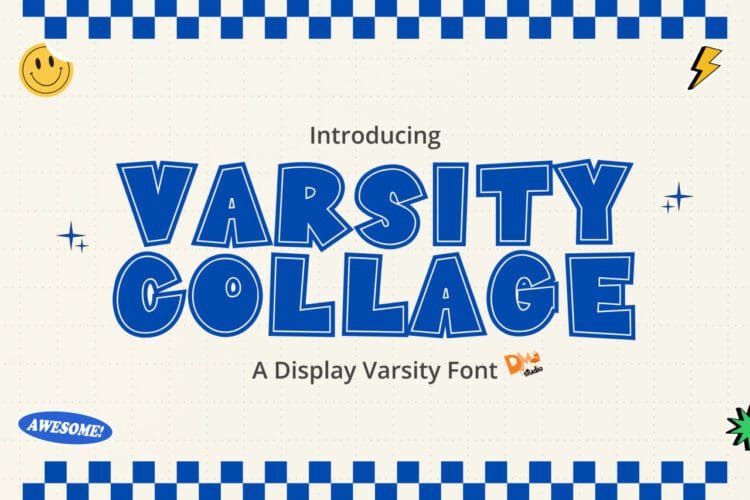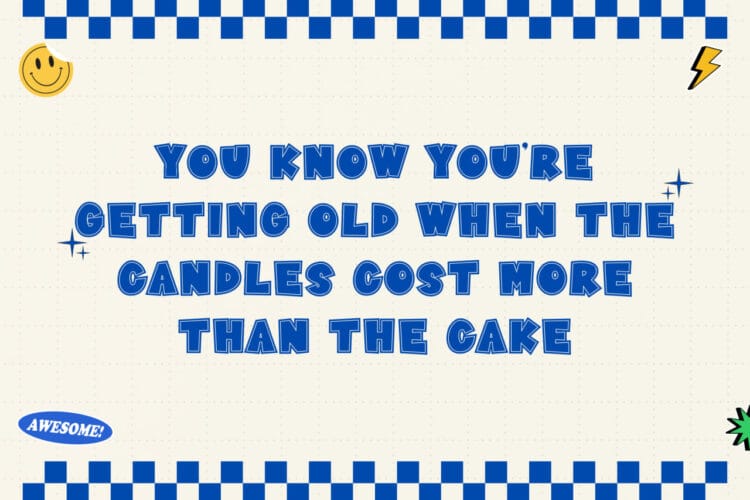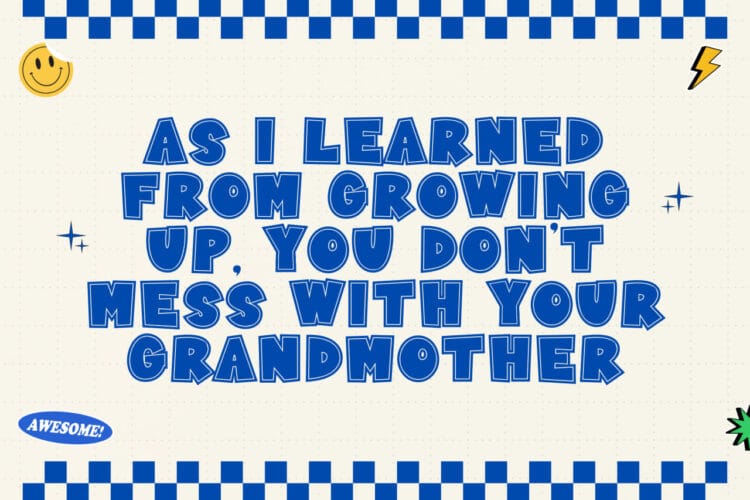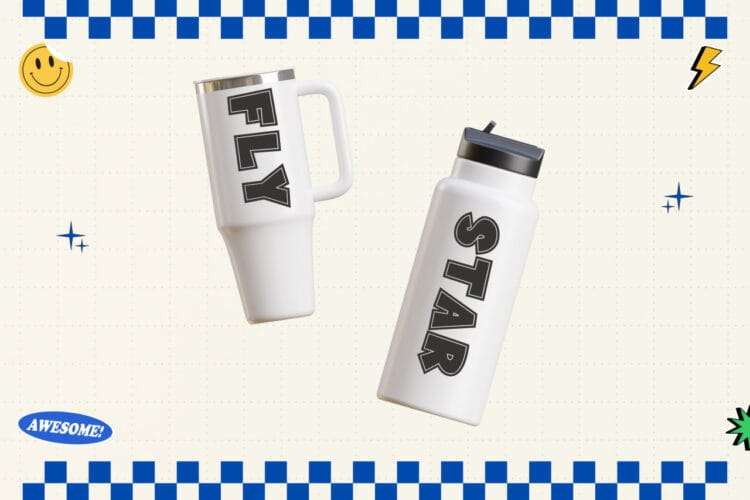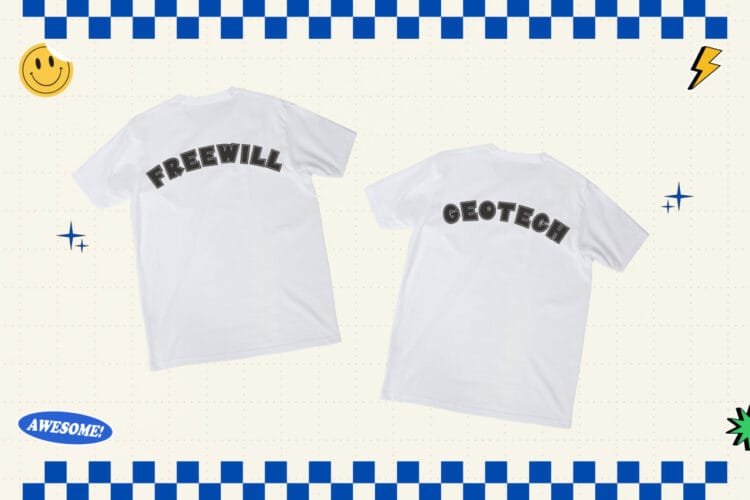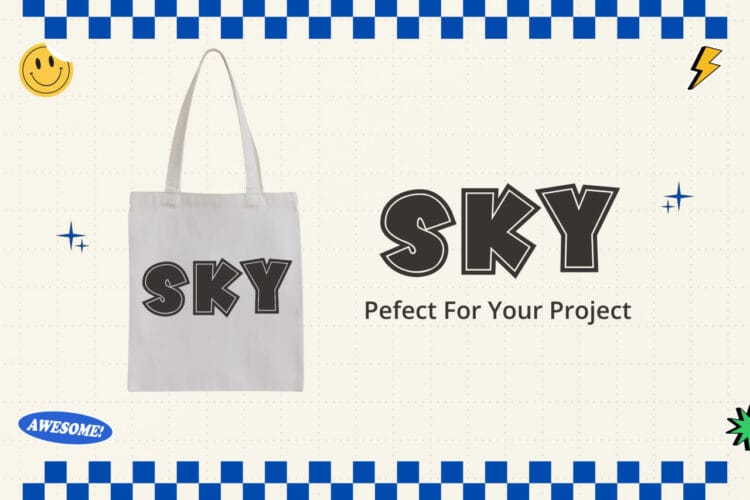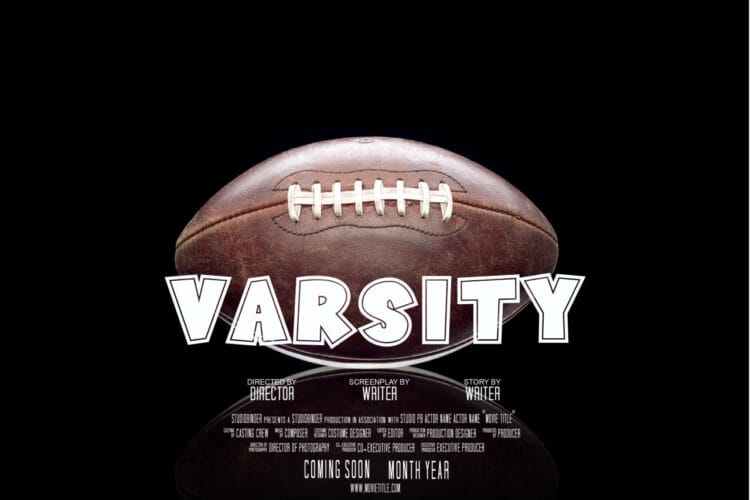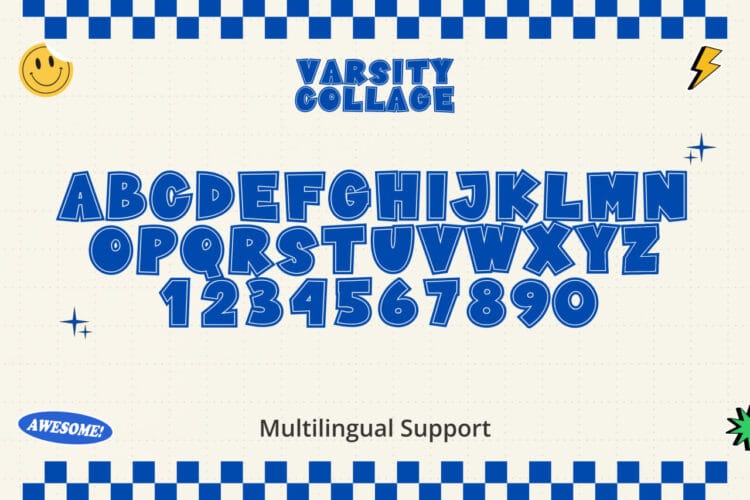
Meet Varsity College
Varsity College Font brings classic campus energy to modern layouts. Letters feel bold, upright, and friendly. Because strokes are sturdy, your words read fast on shirts, stickers, and thumbnails. Use it for team merch, pep banners, school fairs, and YouTube covers. Moreover, the shapes hold color, outline, and texture well. Therefore, even simple mockups look strong on busy feeds.
Where the varsity college font shines
Set names, class years, and rally phrases. For example, try “Go Team,” “Alumni ’25,” or city initials. Then add double strokes, stitch edges, or patch textures to echo athletic gear. Since spacing is tuned for headlines, layouts come together in minutes. As a result, your shop can ship full sets for seasons, clubs, and tournaments.
Fast setup, bold results
Design tips for the varsity college font
Keep copy short and let the letterforms lead. Pair Varsity College with a clean geometric sans for body text. Meanwhile, try inner lines, soft shadows, or sticker borders for depth. Because the shapes are rounded, felt textures and light grain look great. Plus, a tiny halftone adds retro fieldhouse charm.
Why creators choose this varsity college font
You want school spirit with clear readability. This typeface delivers. It grabs attention in crowded feeds and speeds production. Also, it scales from badge stickers to sideline banners. However, remember its sweet spot: titles, names, and jersey-style numbers. When layouts stay simple, results feel bold, friendly, and memorable.
Creative ideas to boost sales
Design camp badges, water-bottle decals, and pep-rally signs. Then build locker labels, tournament swag, and scoreboard headers. Also, include a numbers sheet for quick jersey mockups. Finally, schedule posts around game days to lift clicks and conversions.